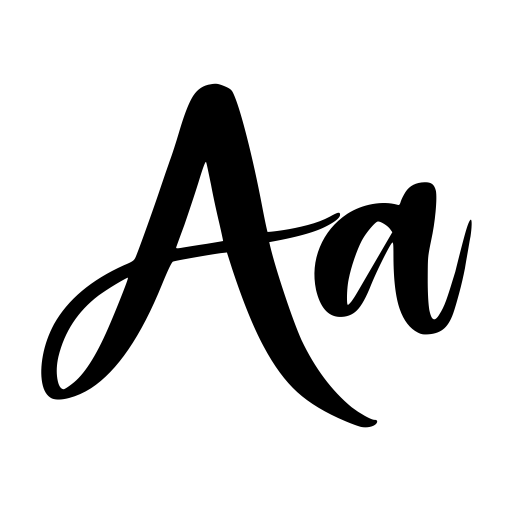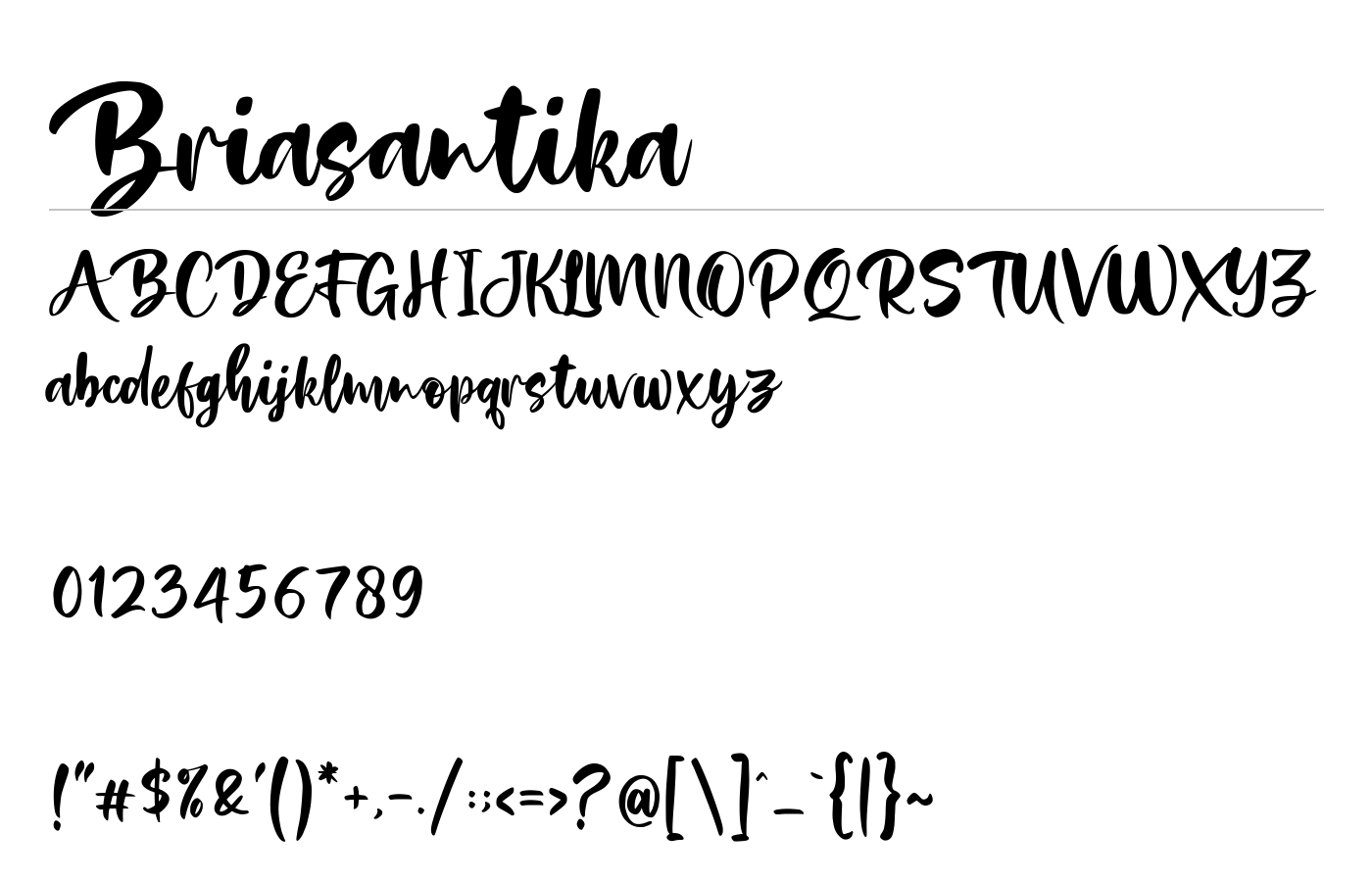
Briasantika is a bold and lively script font with a hand-drawn, brush style that combines playful curves and confident strokes. Its smooth, flowing letterforms and medium contrast give it an inviting and personal feel, making it perfect for creative branding, invitations, and expressive headlines. This font works well where warmth and personality are needed to connect with an audience in a modern and approachable way.
Briasantika Font
About Briasantika Font